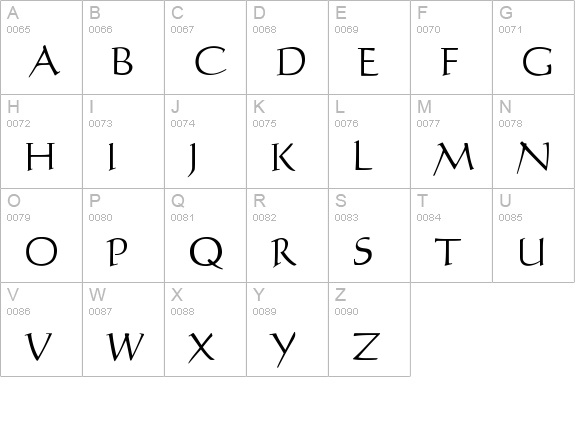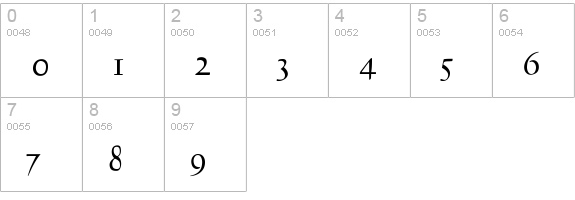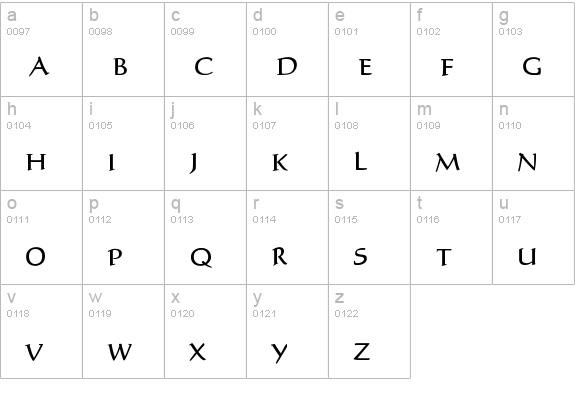
Humanist-SmallCaps Font Details
Introducing Humanist-SmallCaps font, a beautifully crafted typeface that strikes the perfect balance between elegance and readability. With its clean lines and stylish design, this font is ideal for a wide range of projects, from professional documents to creative designs. Featuring small caps that add a touch of sophistication, Humanist-SmallCaps font exudes a timeless charm that is sure to elevate any text it graces. Its humanist proportions and subtle details make it a versatile choice for both print and digital applications. Best of all, Humanist-SmallCaps font is free to download at FontsMarket.com, making it accessible to all who appreciate quality typography. Whether you're a designer looking for a new go-to font or a writer in need of a fresh look for your work, Humanist-SmallCaps font is sure to impress with its combination of beauty and functionality.